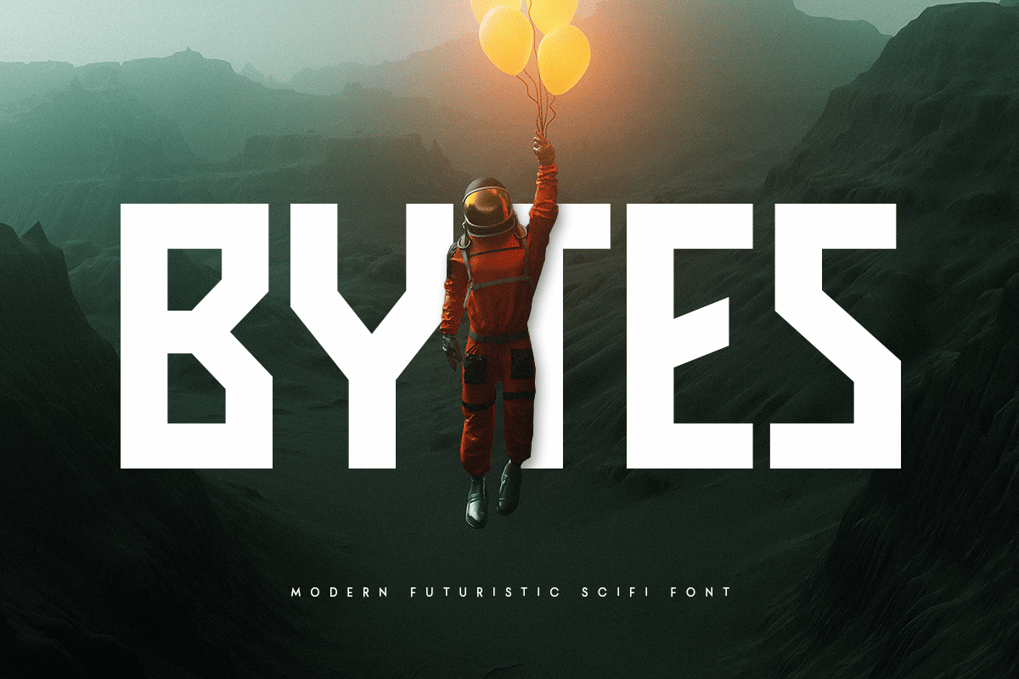
BYTES – Modern Futuristic Scifi Font
BYTES Futuristic Sci-fi Font features:
* Sleek, futuristic characters designed for Technology-themed creativity
* Includes special Technology and Sci-fi characters
* Perfect for headlines, posters, branding, and digital art